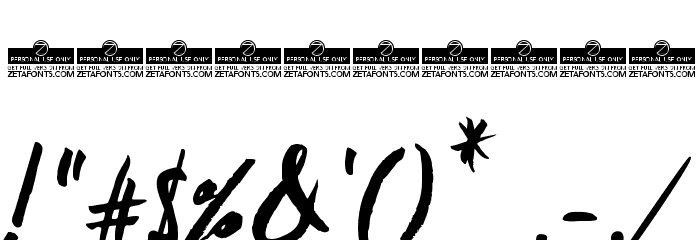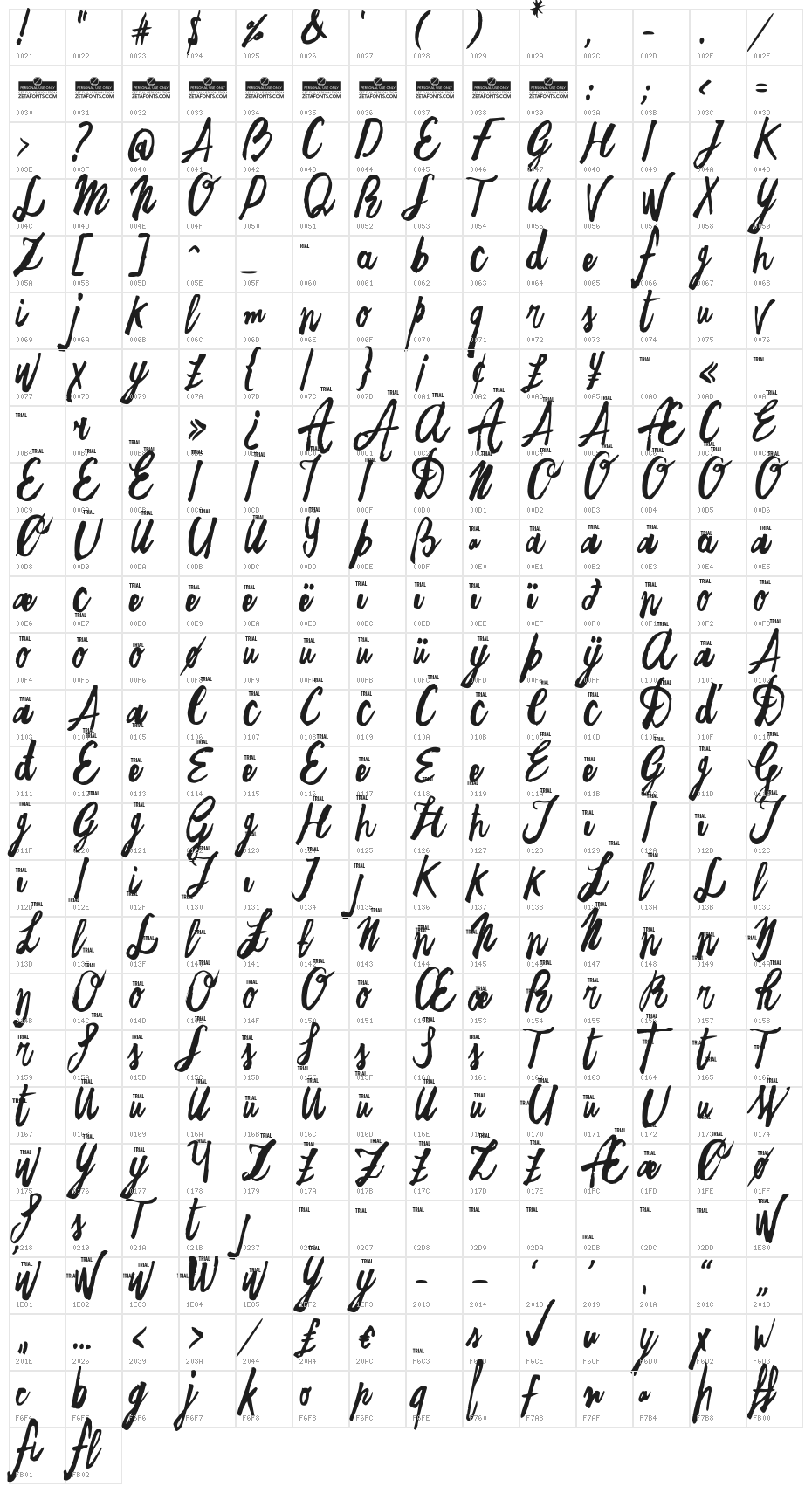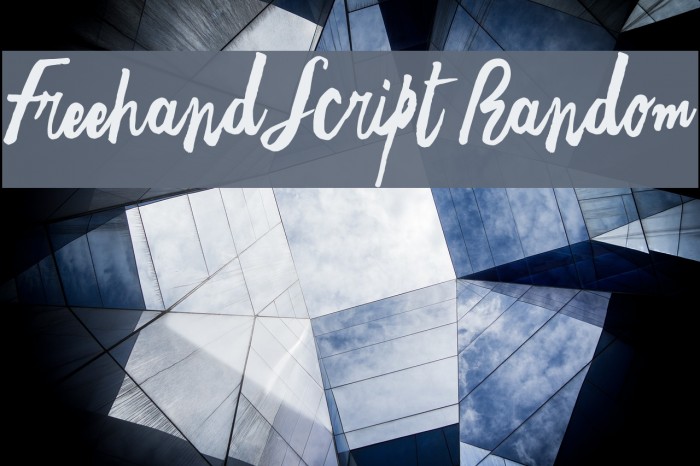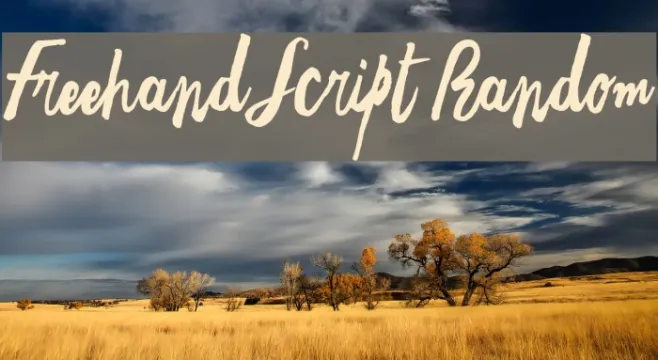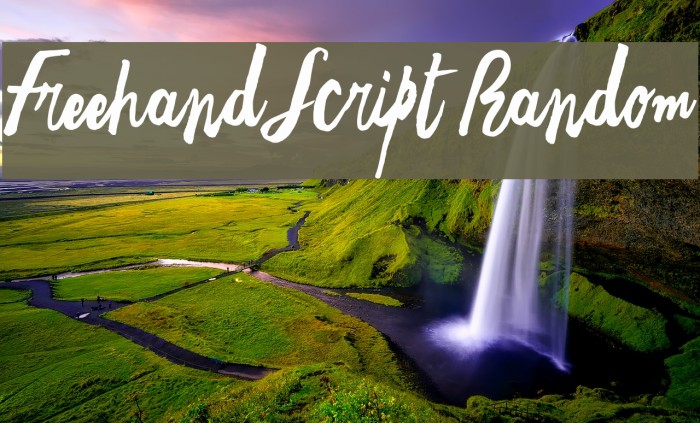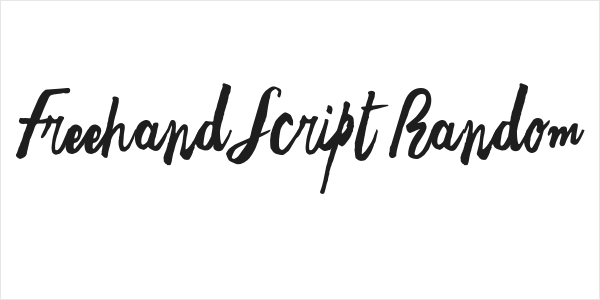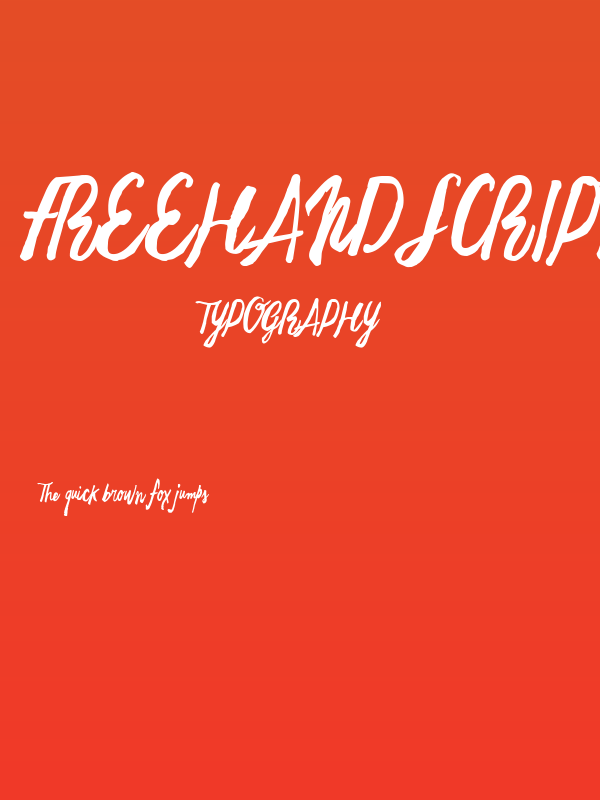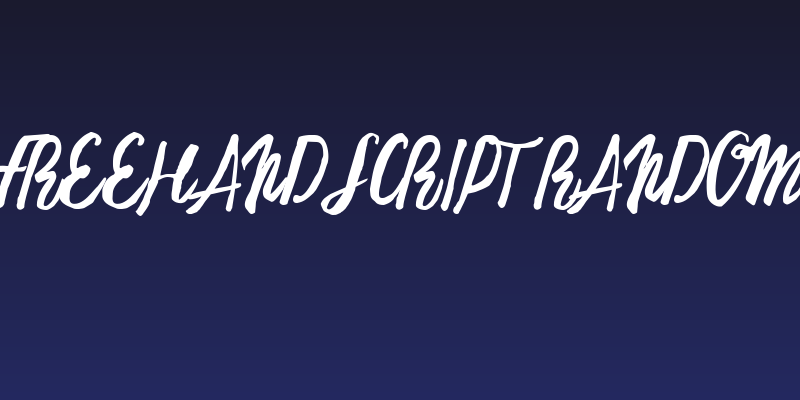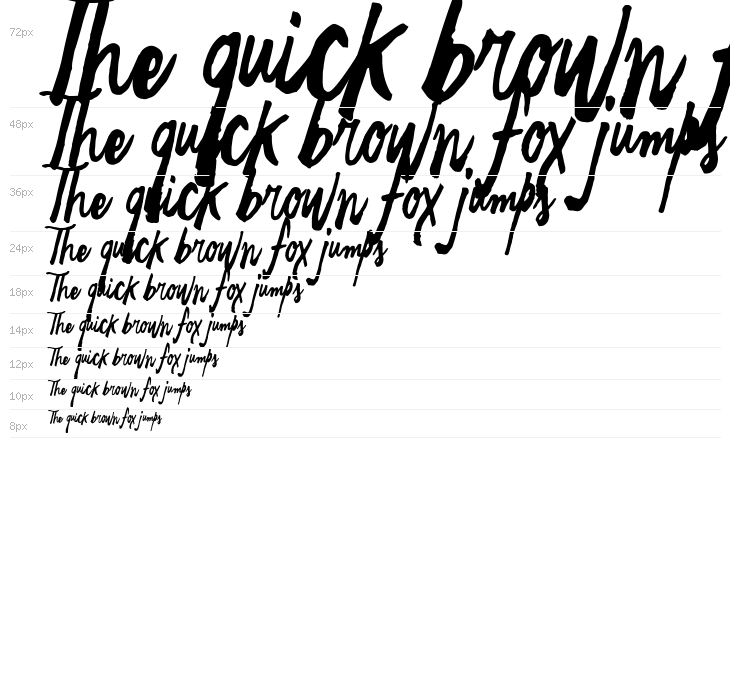
Freehand Script Random Font
Freehand Script Random Description
This font showcases a dynamic and expressive script style, characterized by its fluid and free-flowing strokes. The letters are interconnected, creating a sense of continuity and movement. The uppercase letters exhibit a bold and confident appearance, while the lowercase letters maintain a consistent rhythm and elegance. The font includes a full set of numerals and a variety of special characters, enhancing its versatility. Its hand-drawn aesthetic gives it a personal and artistic touch, making it suitable for creative and informal applications. The overall design is both playful and sophisticated, capturing the essence of handwritten text with a modern twist.
| Use Case | Logos, Headlines, Artistic designs |
| Proposed Projects | Ideal for wedding invitations, greeting cards, branding projects, and artistic designs. |